As a designer, I love using modern script fonts to bring elegance, personality, and a handcrafted feel into premium packaging design. This collection of 13 modern script fonts for product labels in 2026 includes typefaces I personally use to create sophisticated and visually memorable branding projects.
From flowing signature scripts to refined contemporary lettering, each font was selected for its ability to elevate luxury packaging while keeping the design stylish and modern. These typefaces work beautifully for beauty products, candles, fashion packaging, boutique labels, skincare branding, and artisanal goods.
I always look for typography that adds emotion and identity to a product, helping brands feel more authentic, premium, and instantly recognizable through elegant design details.
Ashley Southine Script Font
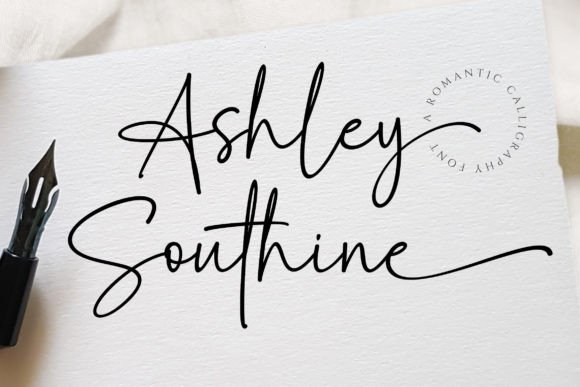
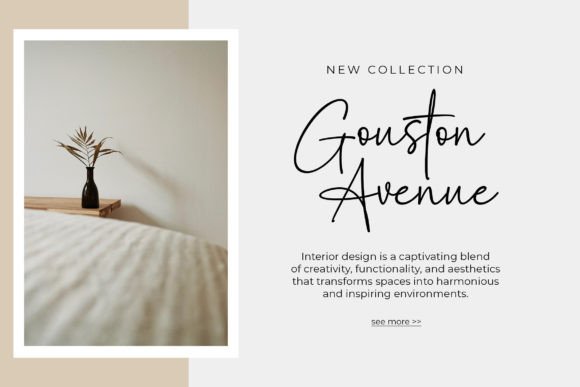
Ashley Southine is a beautiful handwritten script font that adds warmth, elegance, and personality to any creative project. I enjoy using it for wedding invitations, branding, logos, greeting cards, packaging, and social media graphics because its natural handwritten style feels soft and authentic. The flowing handcrafted strokes create a refined and personal look that makes every design feel stylish, inviting, and beautifully unique.
Bailenson Script Font
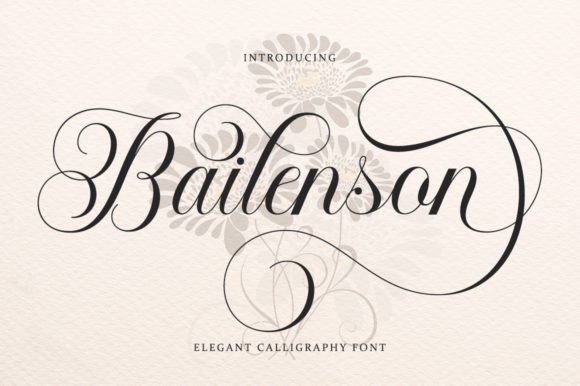
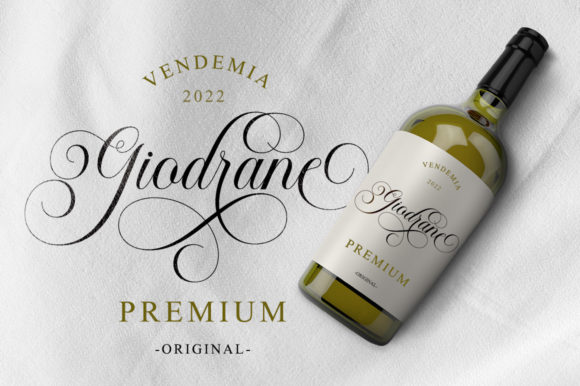
Bailenson is a classic calligraphy font that brings timeless elegance and luxury into every design. I love using it for wedding invitations, branding, greeting cards, certificates, book covers, and business cards because its graceful handwritten style feels refined and sophisticated. Inspired by traditional Italian handwriting, the flowing strokes and elegant curves create a beautiful vintage aesthetic that makes every project look truly premium.
Santa Catalina Script Font
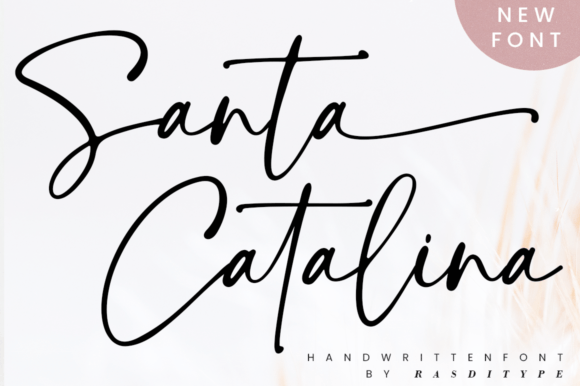
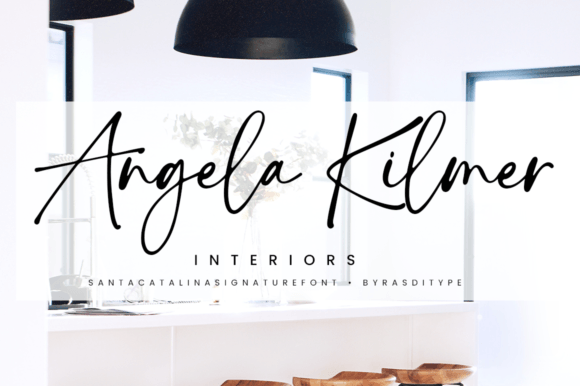
Santa Catalina is a beautiful handwritten font that combines elegance with a timeless personal touch. I love using it for logos, wedding stationery, photography watermarks, branding, and modern website designs because its flowing handwritten style feels graceful and sophisticated. The stylish curves and authentic lettering create a refined look that makes every project feel warm, creative, and visually unforgettable.
Brown Carolina Duo Script Font
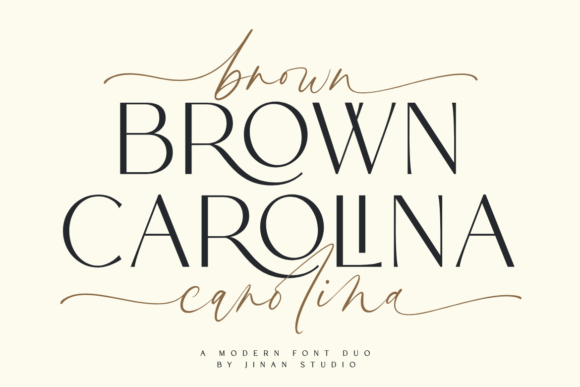
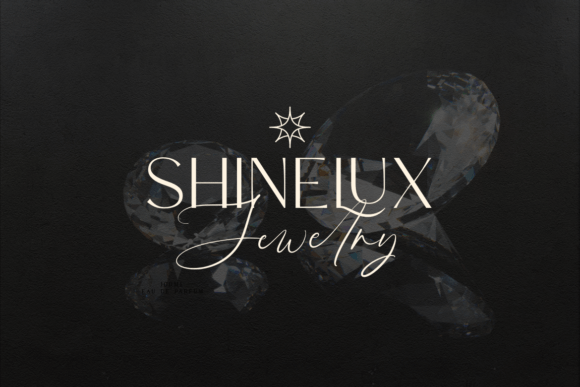
Brown Carolina is a modern font duo that beautifully combines a clean sans serif with an elegant handwritten script for a stylish and sophisticated look. I enjoy using it for wedding invitations, branding, business cards, magazine layouts, logos, and social media graphics because its versatile typography feels modern and luxurious. The unique ligatures and flowing script details make every design look polished, creative, and effortlessly premium.
Ideas Script Font
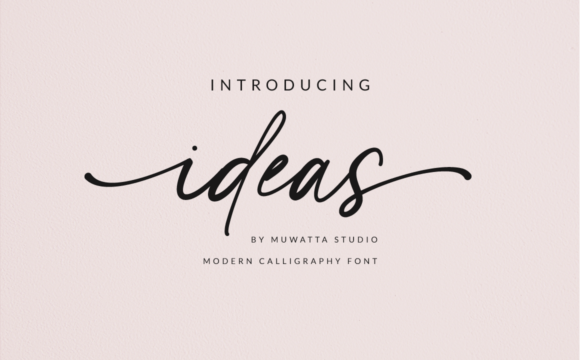
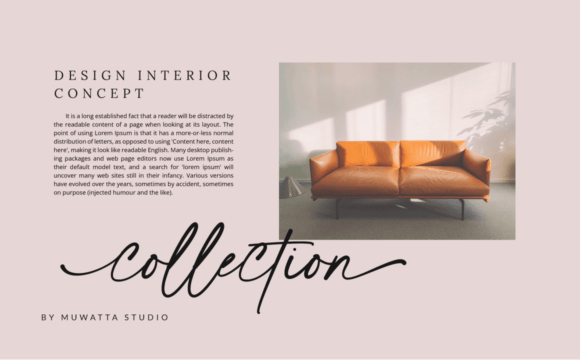
Ideas is a sophisticated modern font that brings elegance and luxury into any creative project. I love using it for wedding invitations, fashion branding, editorial layouts, logos, and event stationery because its refined curves and stylish calligraphy feel timeless and chic. The balance between classic elegance and contemporary design makes every composition look polished, graceful, and beautifully premium.
Vintage Story Script Font
Vintage Story is a handwritten script font that beautifully captures a rustic and nostalgic aesthetic. I enjoy using it for wedding invitations, love letters, branding, logos, quotes, and signature designs because its vintage handwritten style feels authentic and timeless. The elegant ligatures and charming curves create a warm romantic look that makes every project feel personal, stylish, and full of character.
Sign Rathi Script Font
Sign Rathi is a thin cursive script font that adds elegance and sophistication to any creative design. I enjoy using it for wedding invitations, branding, logos, packaging, social media graphics, and fashion projects because its delicate handwritten style feels graceful and modern. The flowing strokes and stylish swashes create a luxurious aesthetic that makes every project look refined and visually captivating.
Breathine Script Font
Breathine is a magical script font carefully created with a touch of elegance. Whether you’re looking for fonts for Instagram or calligraphy scripts for DIY projects, this font will turn any creative idea into a true piece of art!
Glamour Script Font
Glamour is a fashionable script font that instantly adds elegance and luxury to any creative project. I love using it for branding, wedding invitations, logos, packaging, beauty designs, and social media graphics because its stylish handwritten lettering feels modern and sophisticated. The flowing curves and refined calligraphy details create a premium aesthetic that makes every design look polished and unforgettable.
Willowshine Script Font
Willowshine is a modern and stylish calligraphy font featuring authentic beginning and ending swashes. Perfect for wedding invitations, branding, logos, and social media designs. Its smooth curves create a joyful, elegant feel, making it ideal for luxury typography and creative projects. Ideal for premium fonts download and elegant script collections.